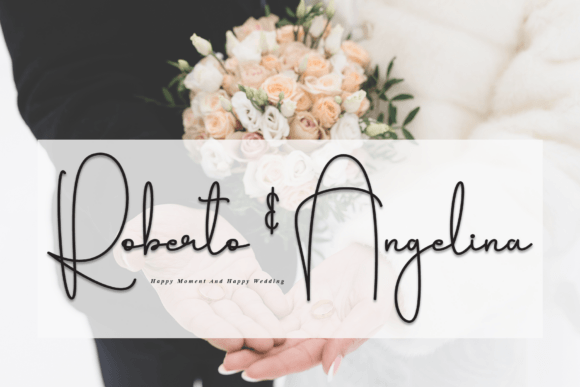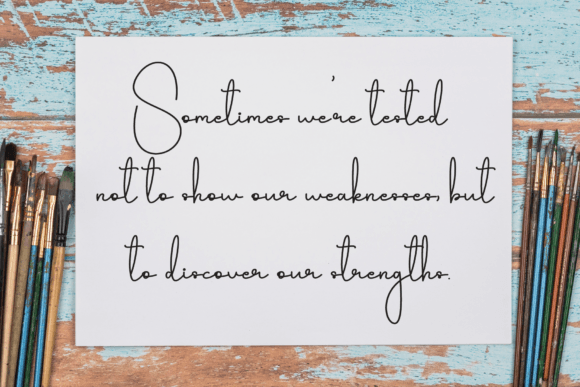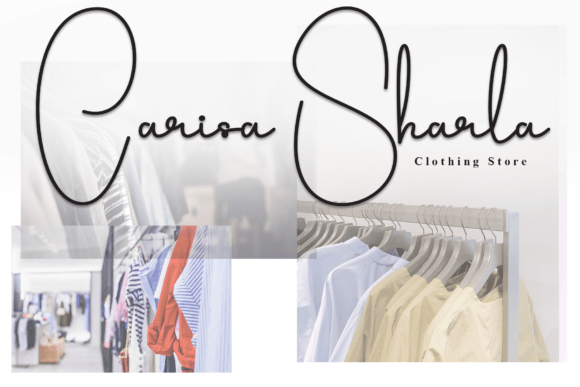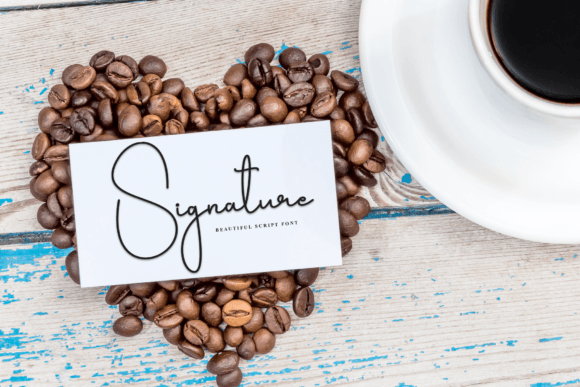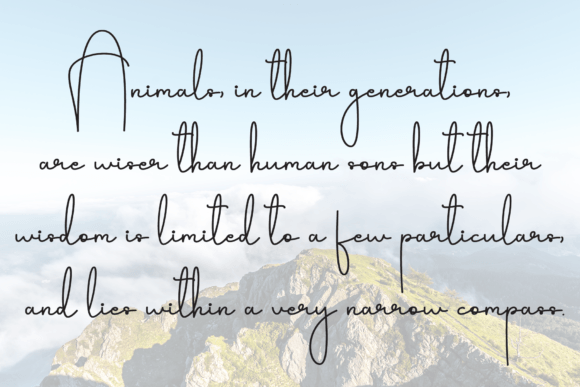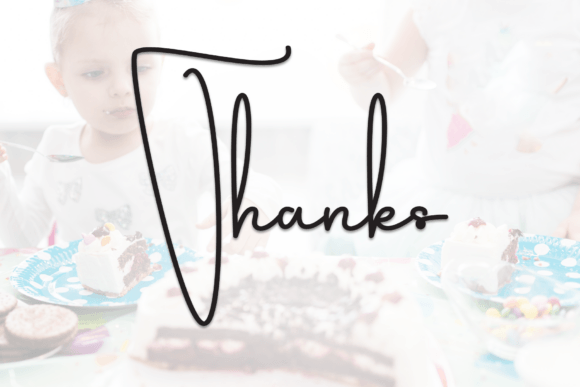
Baby Birthday Font: Add a Playful Twist to Your Designs
Are you looking for a font that can bring a smile to people’s faces? Do you want to add a playful touch to your wedding invites, artistic cards, or any other design project? Look no further than the Baby Birthday Font! This delightful and affable handwritten display font is designed to infuse a keen charm into your designs, making it perfect for crafters and designers who want to create something truly special.
What is Baby Birthday Font?
Baby Birthday Font is a beautiful, handwritten display font that is sure to capture the hearts of anyone who sees it. With its adorable and lively character, this font is perfect for designers and crafters who want to add a touch of whimsy to their designs. Whether you’re creating wedding invites, artistic cards, or any other design project, Baby Birthday Font is the perfect choice.
Key Features of Baby Birthday Font
- Delightful and Affable: Baby Birthday Font has a keen charm that makes it perfect for designers and crafters who want to create something truly special.
- Handwritten Display Font: This font has a beautiful, handwritten feel that adds a personal touch to any design project.
- Adorable and Lively: With its playful character, Baby Birthday Font is sure to bring a smile to people’s faces.
- Perfect for Playful Designs: Whether you’re creating wedding invites, artistic cards, or any other design project, Baby Birthday Font is the perfect choice.
Why Choose Baby Birthday Font?
There are many reasons why Baby Birthday Font is the perfect choice for designers and crafters. Here are just a few:
- Unique and Eye-Catching: Baby Birthday Font is a unique and eye-catching font that is sure to stand out from the crowd.
- Easy to Read: Despite its playful character, Baby Birthday Font is easy to read, making it perfect for designs that require a clear and concise message.
- Versatile: Baby Birthday Font can be used for a wide range of design projects, from wedding invites to artistic cards and more.
- Fun and Playful: This font is perfect for designers and crafters who want to add a touch of fun and playfulness to their designs.
How to Use Baby Birthday Font
Using Baby Birthday Font is easy! Here are a few tips to get you started:
- Pair it with Other Fonts: Baby Birthday Font pairs well with other fonts, making it easy to create a unique and eye-catching design.
- Use it for Headings: This font is perfect for headings and titles, adding a touch of whimsy to any design project.
- Add it to Your Designs: Whether you’re creating wedding invites, artistic cards, or any other design project, Baby Birthday Font is the perfect addition.
Here are a few tips and tricks for designers and crafters who want to get the most out of Baby Birthday Font:
- Experiment with Different Colors: Baby Birthday Font looks great in a variety of colors, so don’t be afraid to experiment and find the perfect hue for your design.
- Use it for DIY Projects: This font is perfect for DIY projects, such as handmade cards and invitations.
- Pair it with Images: Baby Birthday Font pairs well with images, making it easy to create a unique and eye-catching design.